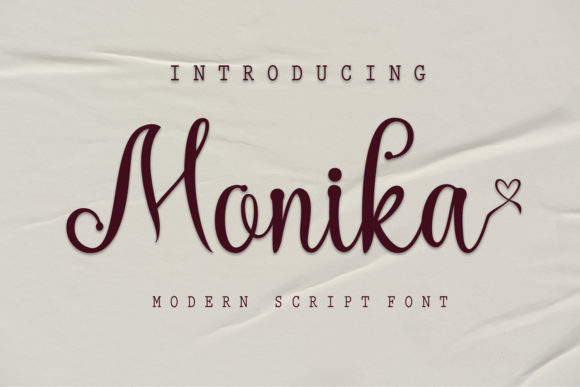
Introducing Monika Font - The Ultimate Epitome of Sophistication for Your Business Identity
Step into an enchanting world of exquisitely crafted letters where grace and refinement meet. Allow us to present Monika Font, a modern script typeface that exudes luxury and elegance. Designed with a keen eye for detail, this masterpiece is adorned with stylish alternates and ligatures, rendering it an absolute delight for any creative endeavor.
Compose business cards that radiate charisma and leave a lasting impression, imbuing professional correspondence with an air of sophistication. Transform your digital presence with logos and social media posts that captivate and allure, making an indelible mark on your audience. Monika Font possesses the innate ability to elevate your branding endeavors, transforming them into visual spectacles that defy convention.
Unleash your creativity and embark on a design odyssey where possibilities are endless. Whether you're a seasoned designer or a novice seeking to make a statement, Monika Font will guide you effortlessly. Its user-friendly nature makes it accessible to all, irrespective of skill level.
Immerse yourself in the allure of Monika's meticulously crafted characters. Each letterform is imbued with a distinct personality, exuding elegance and refinement. Script your dreams into reality with Monika as your trusted companion. The harmonious flow of its lines will lend an air of grace to your designs, while its diverse range of stylistic alternatives empowers you to create truly unique compositions.
As you embark on your creative journey with Monika Font, discover new dimensions of aesthetic excellence. Experience the joy of crafting visual masterpieces that emanate luxury and sophistication. Monika Font is the key to unlocking your creative potential, catapulting your designs to new heights of brilliance.